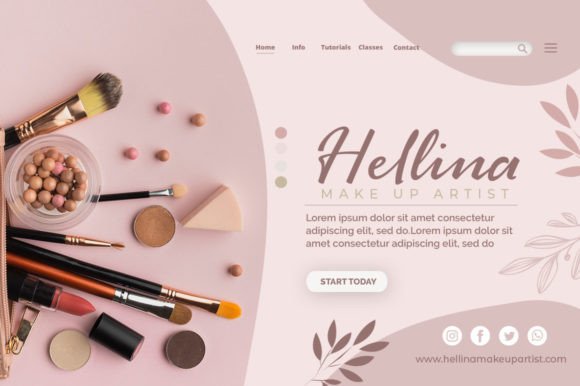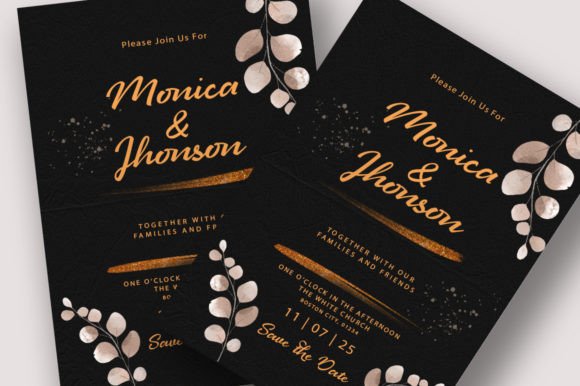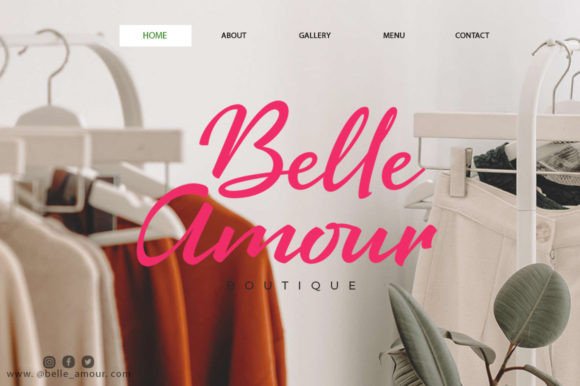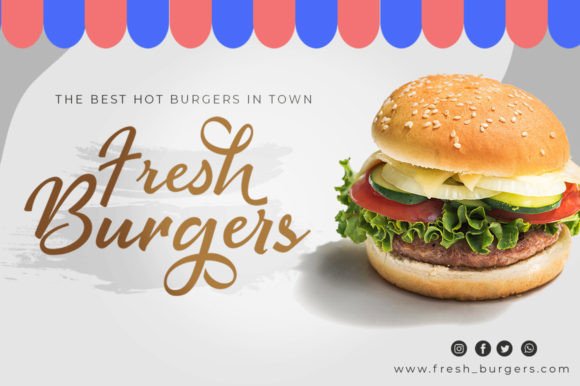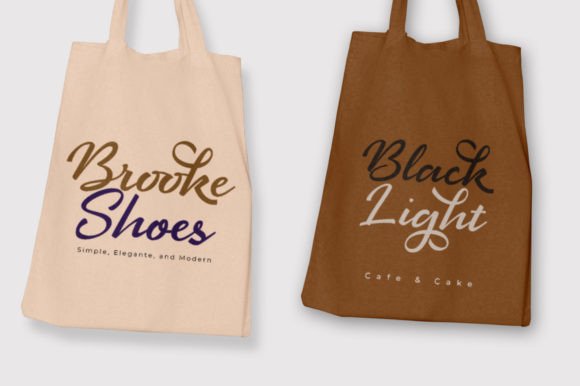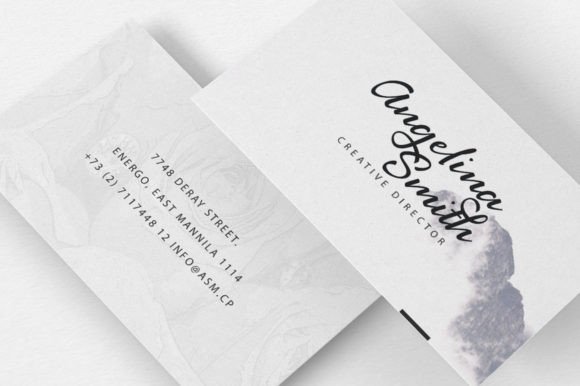
Introducing Billioner Font: Elevate Your Designs with Elegance and Style
In the world of design, typography plays a crucial role in conveying the tone and aesthetic of a project. For those seeking a font that exudes elegance, sophistication, and style, look no further than the Billioner Script. This stunning calligraphy font is perfect for designers and crafters who want to add a touch of luxury to their creations. Whether you’re working on wedding invitations, save date cards, feminine branding, or other design necessities, Billioner Script is the ideal choice.
A Modern Take on Traditional Calligraphy
Billioner Script is a modern and simple yet authentic calligraphy font that is sure to impress. Its sleek and refined lines make it perfect for a wide range of design applications. The font’s clean and elegant appearance ensures that it will complement any design, from classic and traditional to modern and trendy. With Billioner Script, you can add a touch of sophistication to your projects and take your designs to the next level.
Comprehensive Character Set
One of the standout features of Billioner Script is its comprehensive character set. The font includes the complete set of basic uppercase and lowercase characters, numbers, and punctuation marks. This means that you’ll have everything you need to create beautiful and professional-looking designs. Whether you’re working on a wedding invitation or a branding project, Billioner Script has got you covered.
Binders and Stylistic Alternatives
What sets Billioner Script apart from other calligraphy fonts is its inclusion of binders and many stylistic alternatives. These features allow you to perfectly recreate natural calligraphy and add a touch of authenticity to your designs. With binders, you can create flowing connections between letters, giving your text a more organic and hand-written feel. The stylistic alternatives provide you with a range of options for customizing your text, ensuring that your design stands out from the crowd.
Billioner Script is a versatile font that is perfect for designers and crafters alike. Whether you’re working on a commercial project or a personal craft, this font is sure to impress. Its elegant and sophisticated appearance makes it ideal for a wide range of applications, including:
- Wedding invitations and save date cards
- Feminine branding and packaging
- Stationery and greeting cards
Why Choose Billioner Script?
So why choose Billioner Script over other calligraphy fonts? Here are just a few reasons:
- Elegance and sophistication: Billioner Script exudes luxury and refinement, making it perfect for high-end designs.
- Versatility: This font is suitable for a wide range of applications, from wedding invitations to branding and packaging.
- Authenticity: With its binders and stylistic alternatives, Billioner Script allows you to create authentic and natural-looking calligraphy.
In conclusion, Billioner Script is a stunning calligraphy font that is sure to elevate your designs with elegance and style. Its comprehensive character set, binders, and stylistic alternatives make it the perfect choice for designers and crafters seeking a luxurious and sophisticated font. Whether you’re working on a wedding invitation, branding project, or personal craft, Billioner Script is the ideal choice. So why wait? Download Billioner Script today and take your designs to the next level!